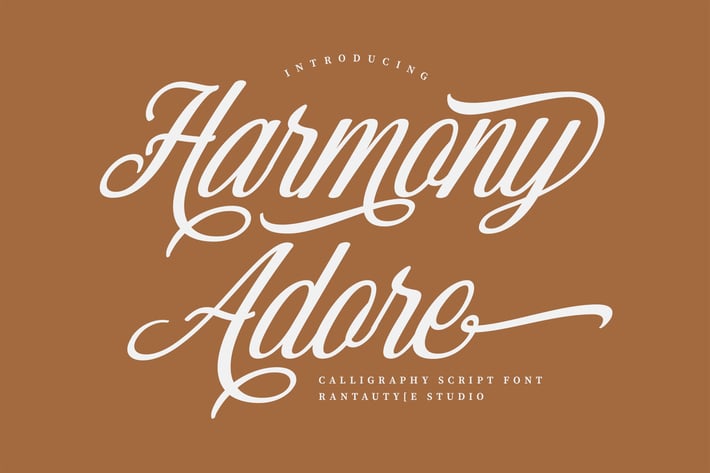
Harmony Adore Modern Script Font
Harmony adore is elegant script font inspire by love and wedding design. Harmony adore created by carefully designed with consistent strokes, this beautiful script font offers a minimalist, luxurious and classy feel.
Harmony adore is perfectly choice for any creative endeavor, chic, lifestyle design such as logotype, title, headline, label, watermark on photography, cover, branding, display and magazine, wedding event, corporate brand, romantic quotes, invitation, album cover, business card, business project and many other design project with handwritten taste.